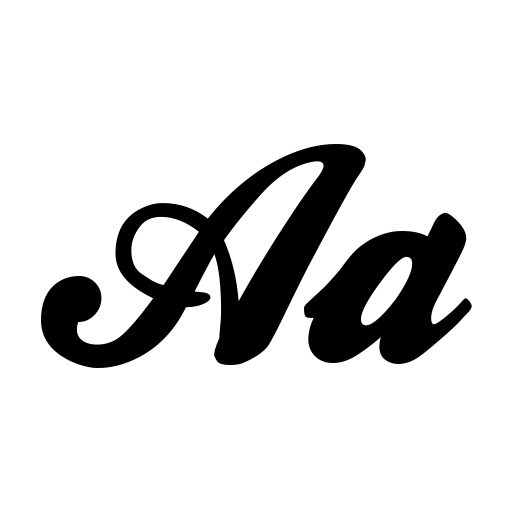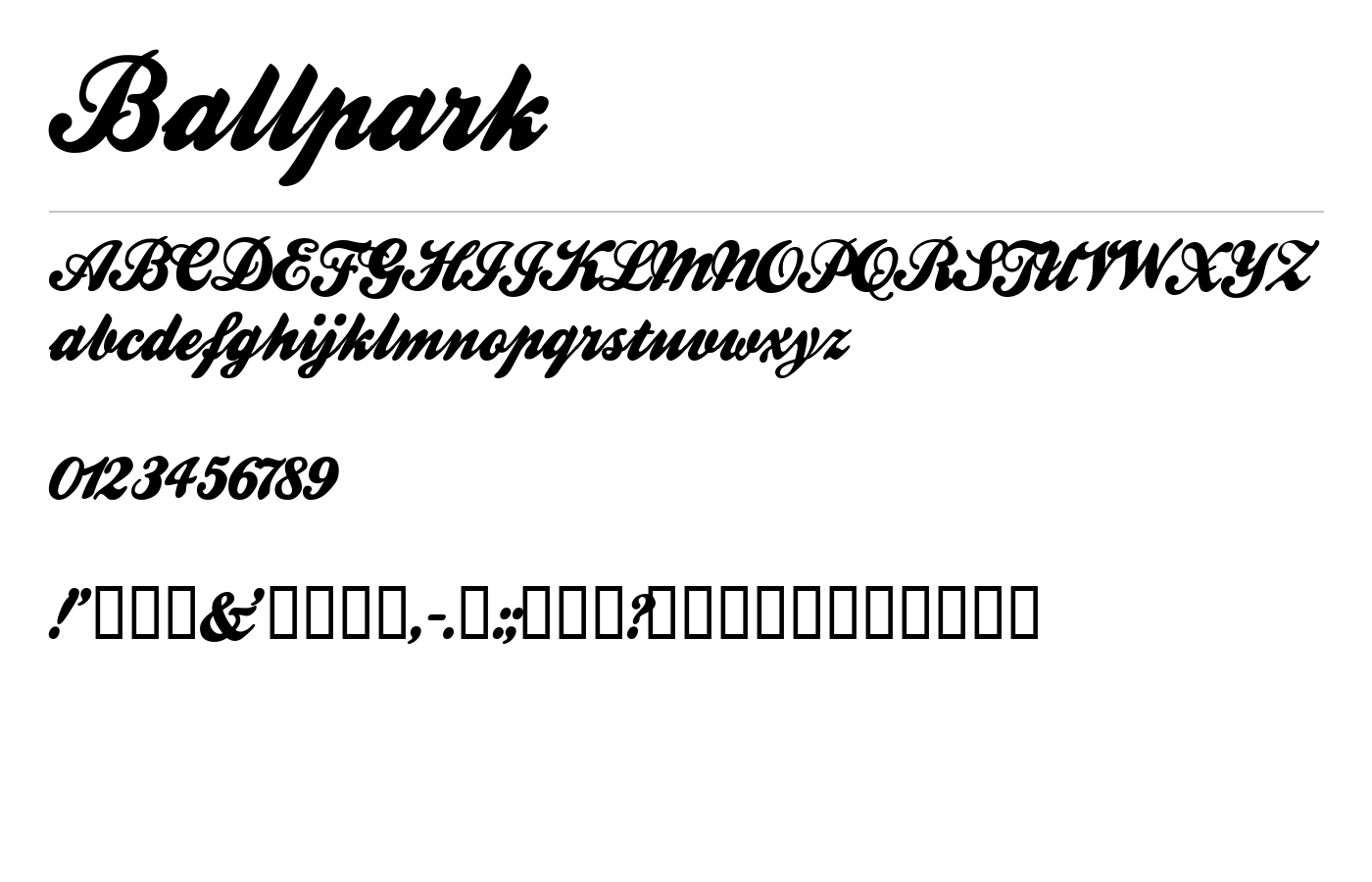
Ballpark is a bold, script-style font with a strong vintage feel, featuring thick, flowing strokes and elegant curves that give it a lively, sporty character. Its dense letterforms and classic cursive style make it ideal for attention-grabbing headlines, logos, and branding that want to evoke a sense of tradition and spirited energy. This font works well for designs related to sports, retro themes, or any project seeking dynamic yet polished typography.
Ballpark Font
About Ballpark Font